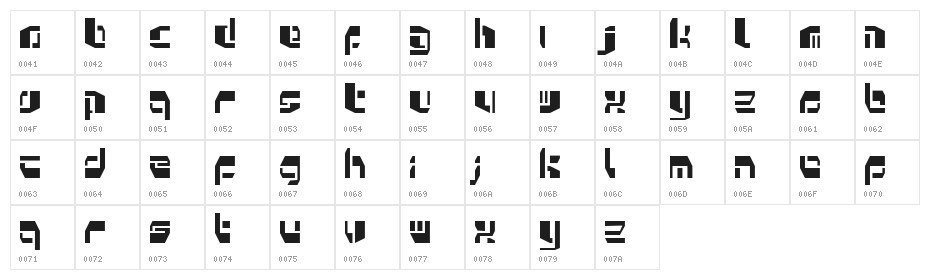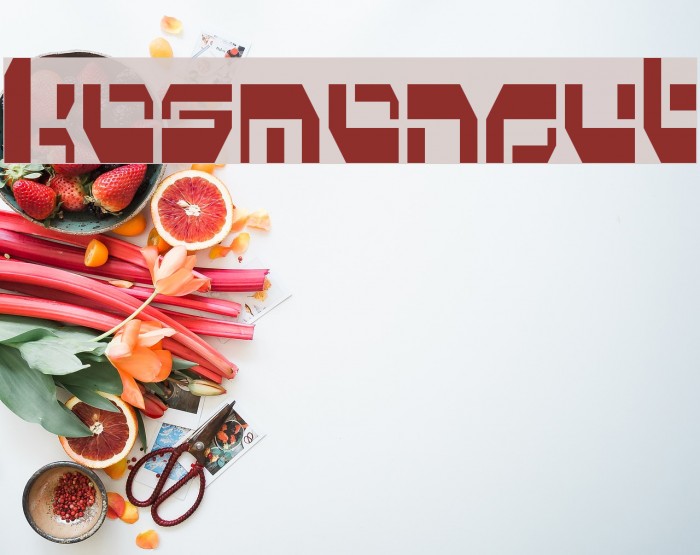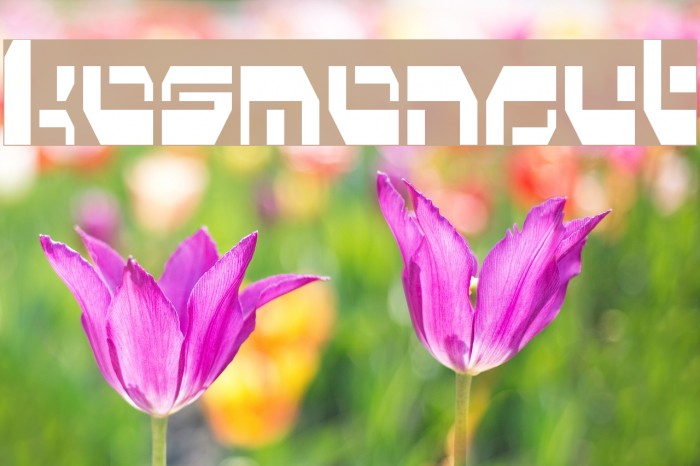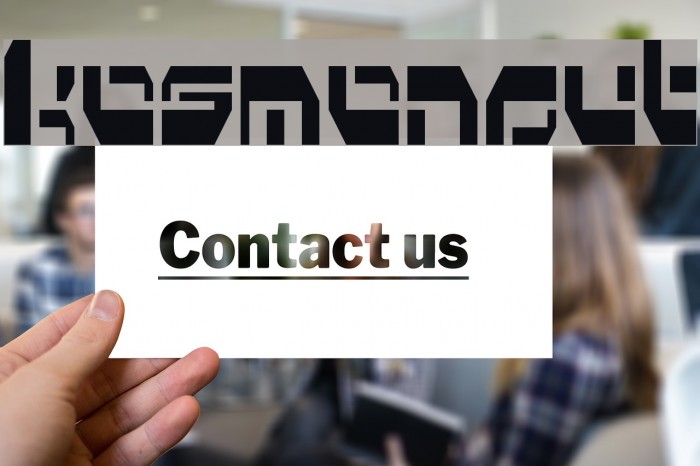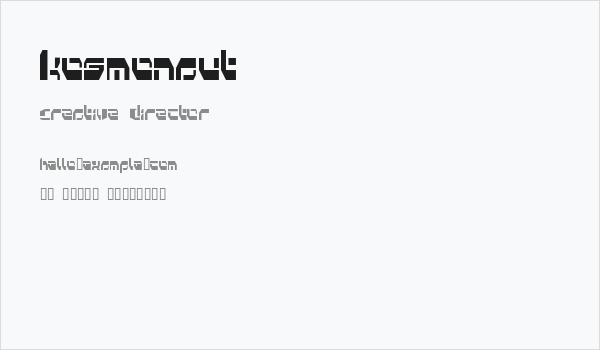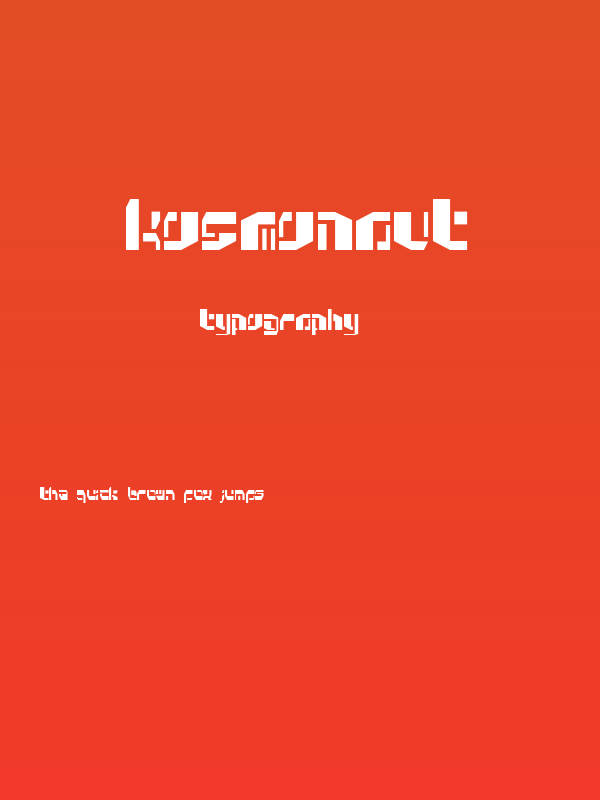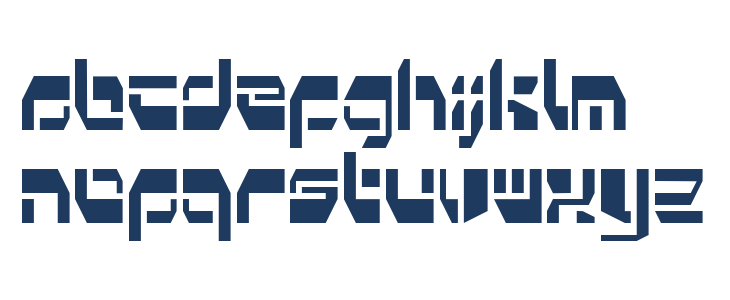
Kosmonaut Font
Kosmonaut Description
This font features a bold, futuristic design with geometric shapes and sharp angles. The characters are constructed with a blocky, stencil-like appearance, giving them a distinct, modern look. The uppercase and lowercase letters share a consistent style, maintaining the angular and edgy aesthetic. The numbers and special characters follow the same design principles, ensuring uniformity across the font. The overall style is reminiscent of sci-fi and space-themed visuals, making it ideal for projects that require a modern and technological feel.
| Proposed Projects | Ideal for sci-fi themed projects, technology branding, video game titles, and futuristic posters. |